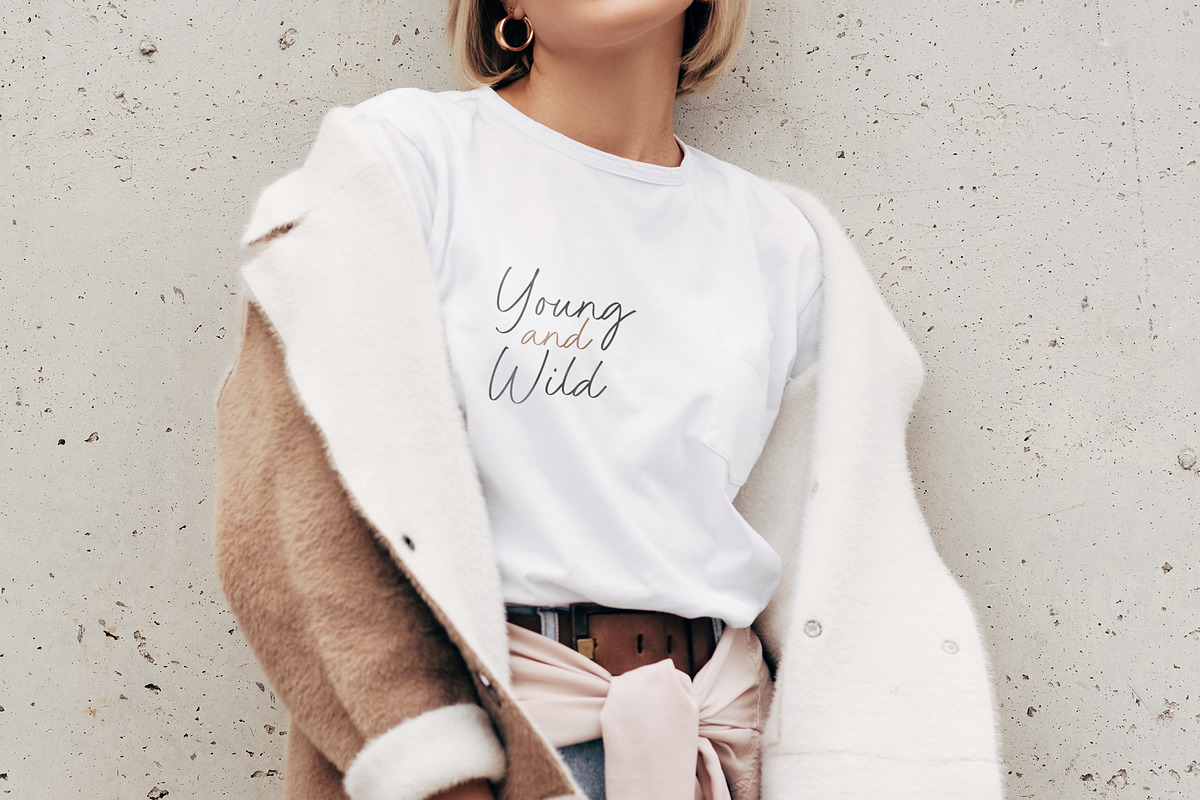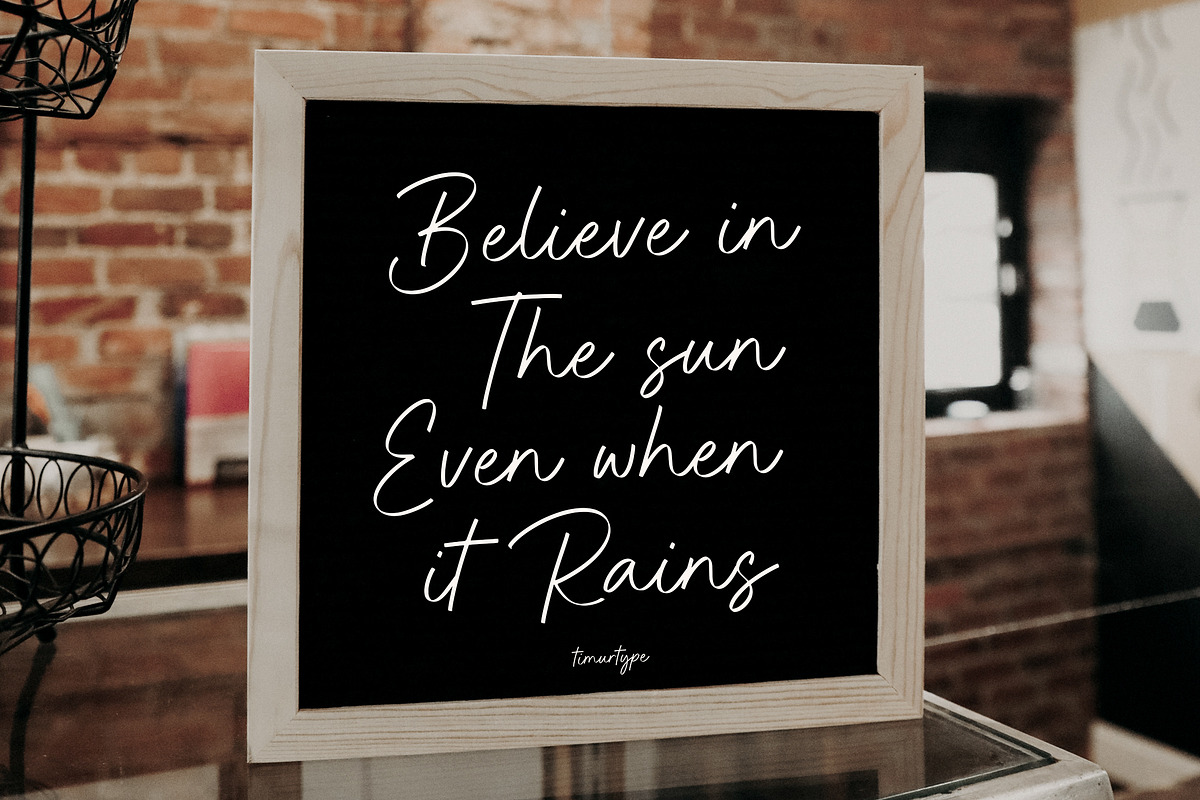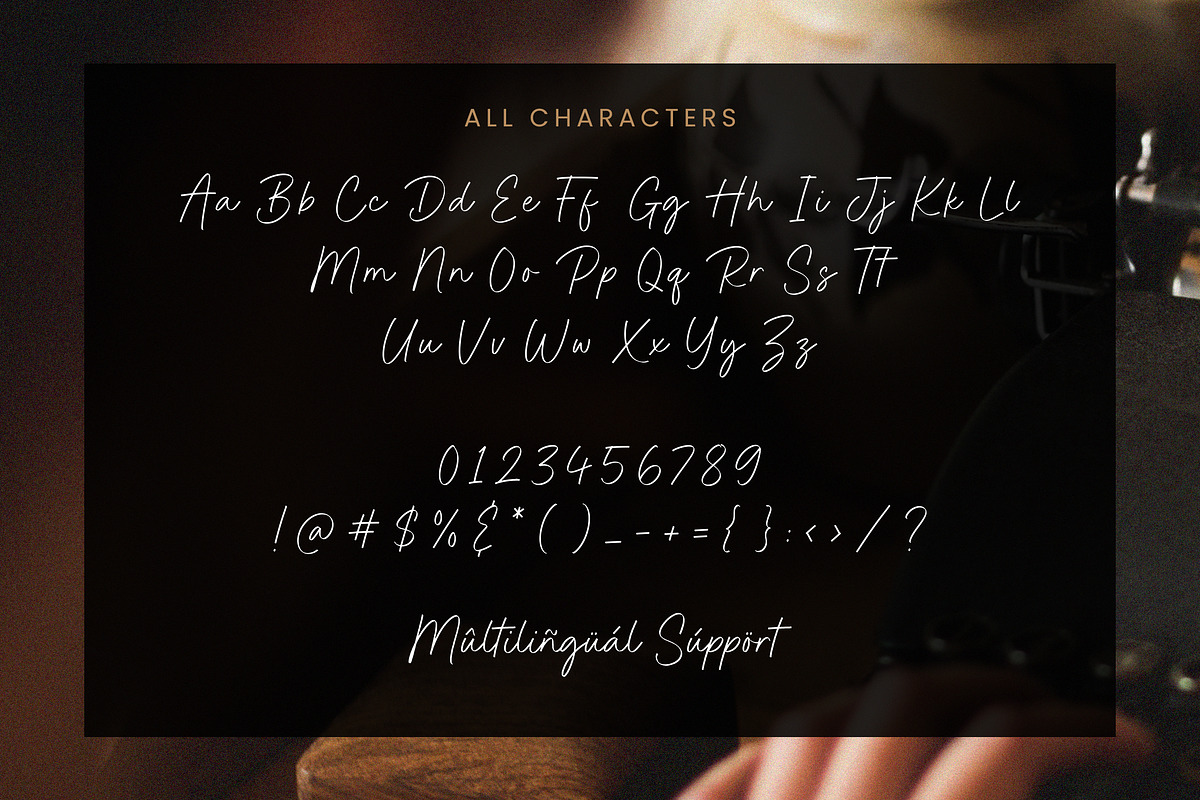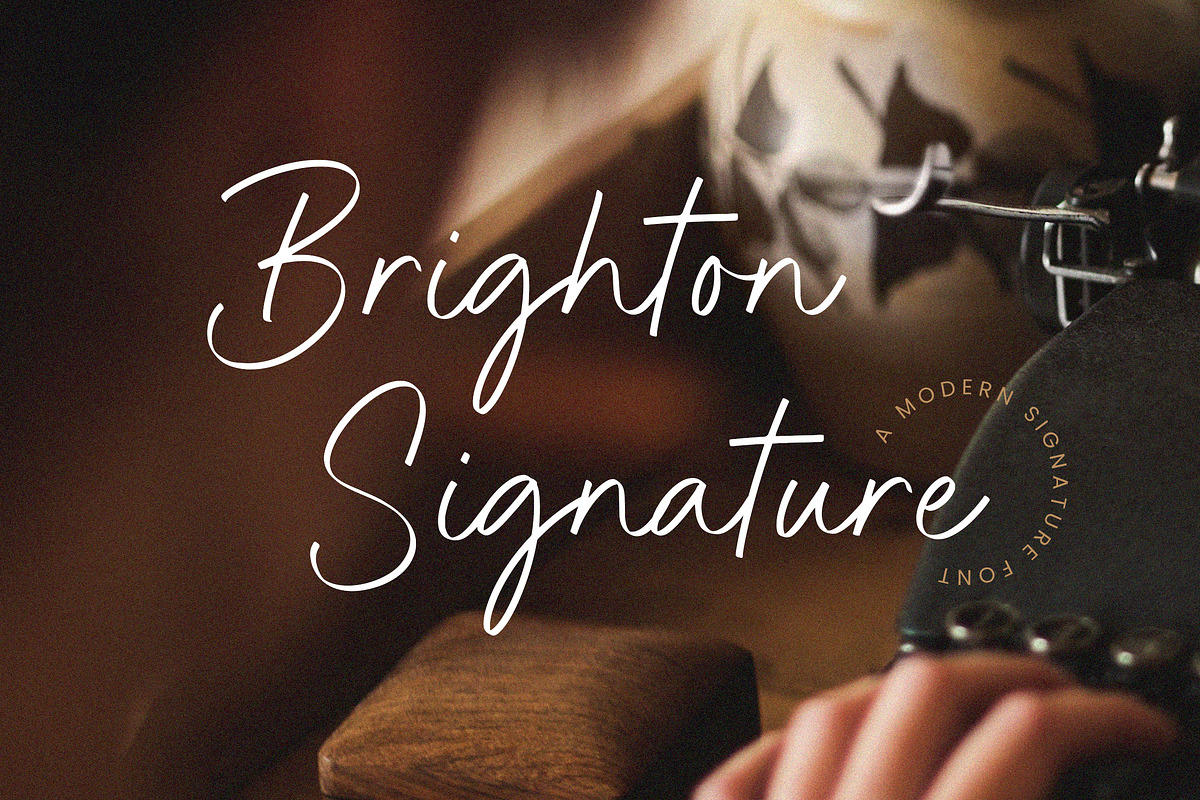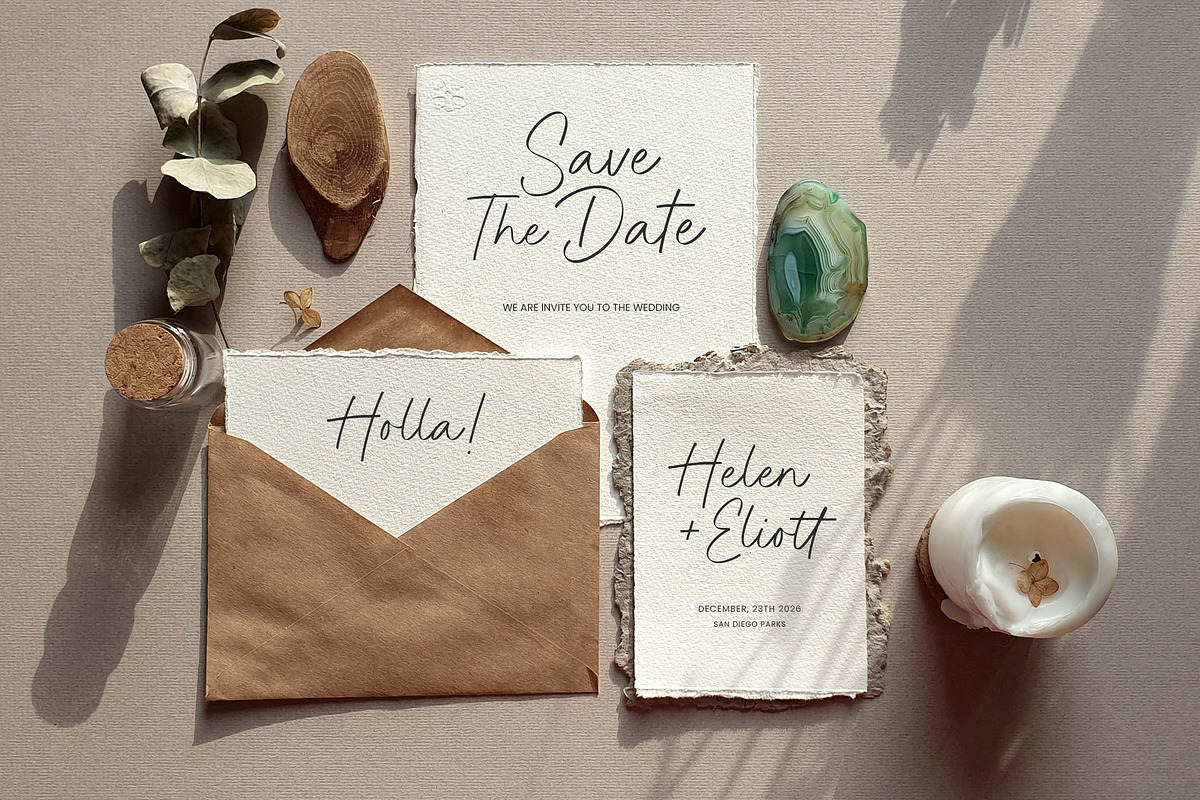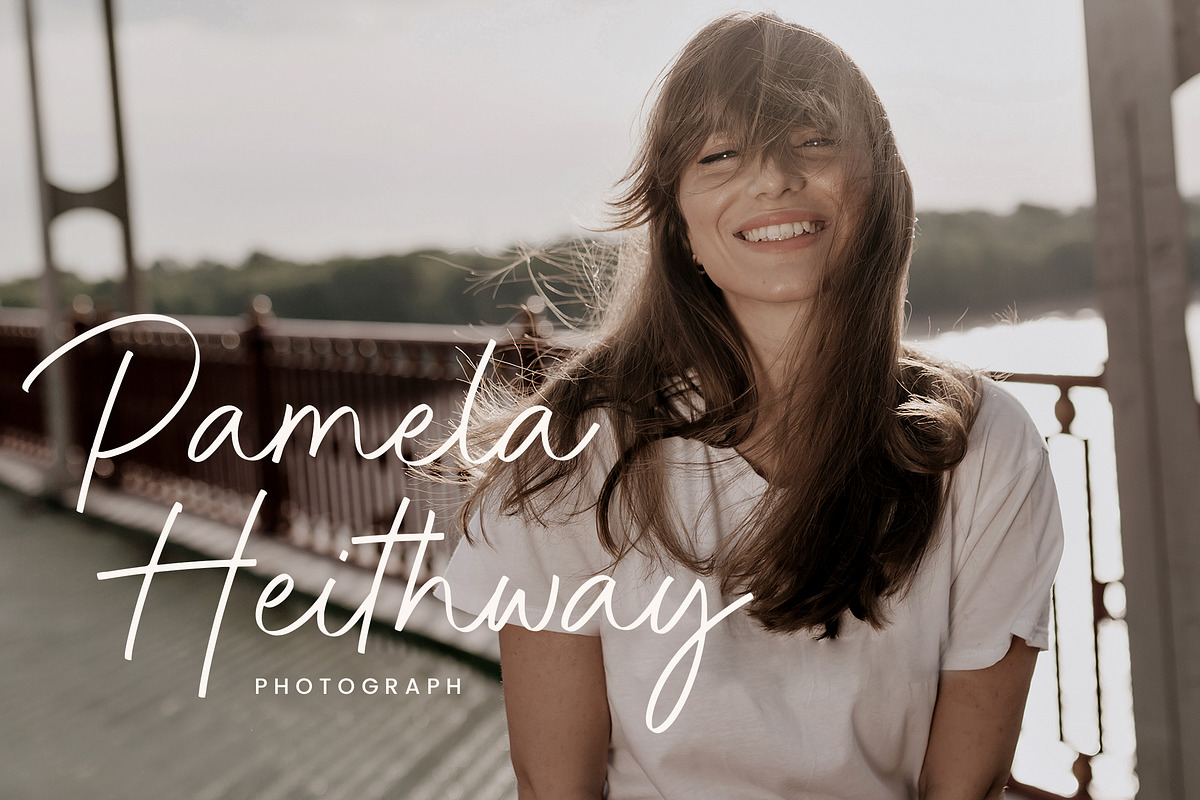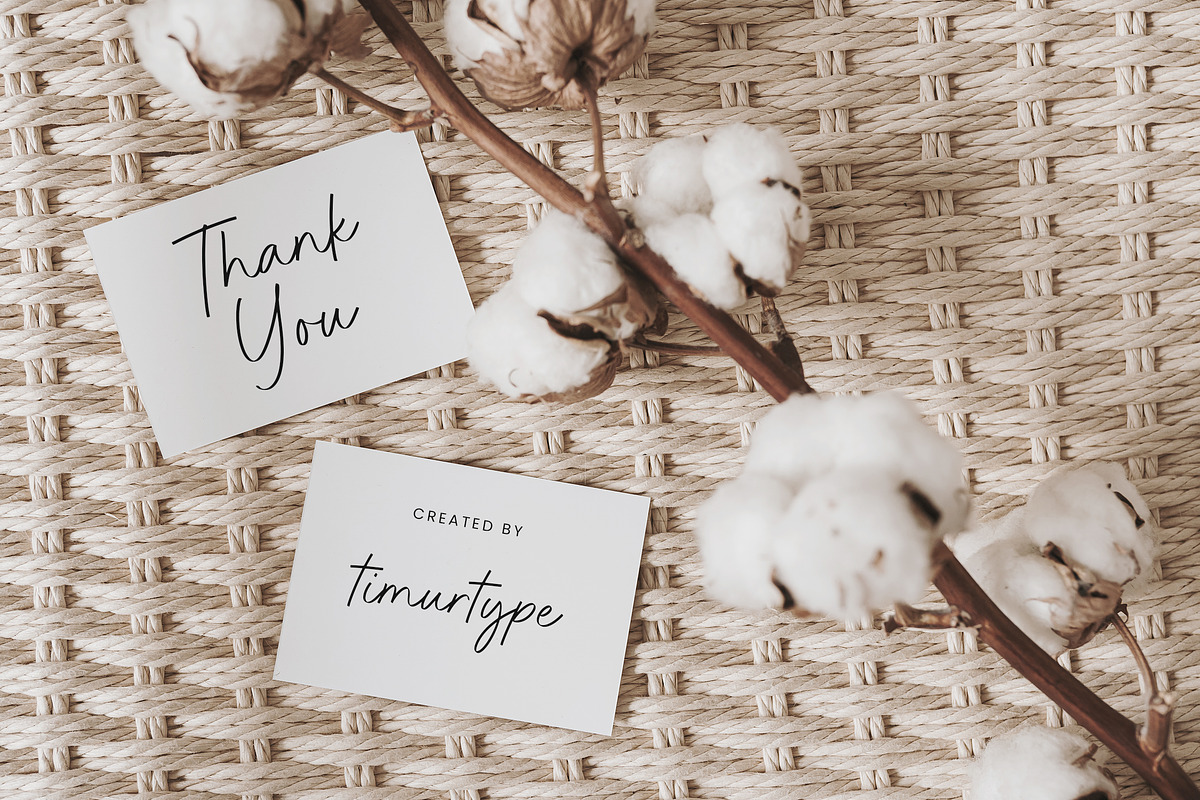
Brighton Signature - Modern Font
Proudly Present Brighton Signature
Brighton Signature – Modern Signature font that is modern and fresh, and will bring a warm and inviting feel to your business. Take advantage of the fonts and experience the magic for yourself. Brighton Signature font is perfect for product packaging, branding project, megazine, social media, wedding, or just used to express words above the background.
Brighton Signature font also multilingual support. Brighton Signature font Features premium : -Full Set of standard alphabet and punctuation